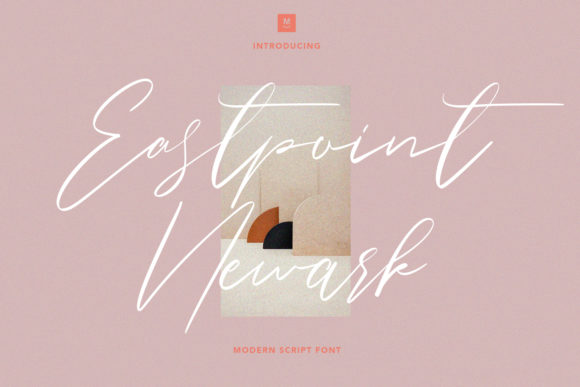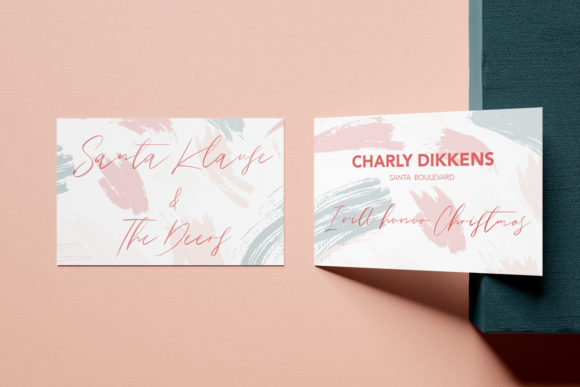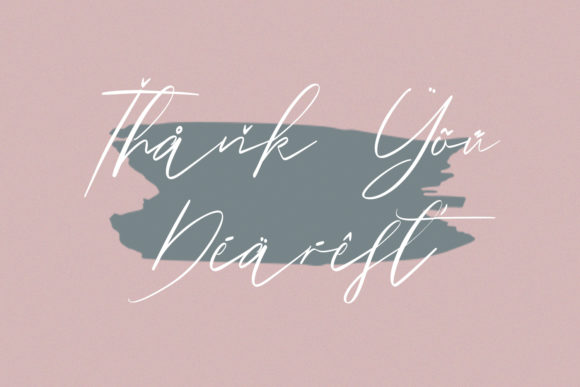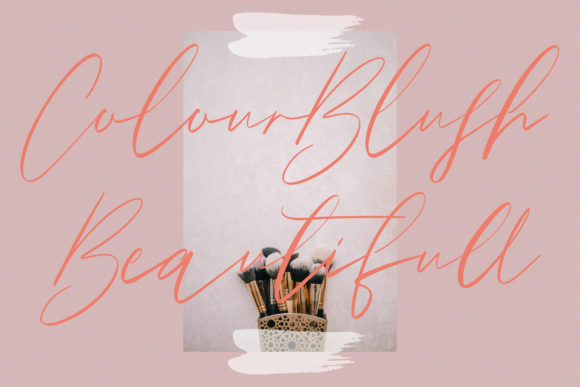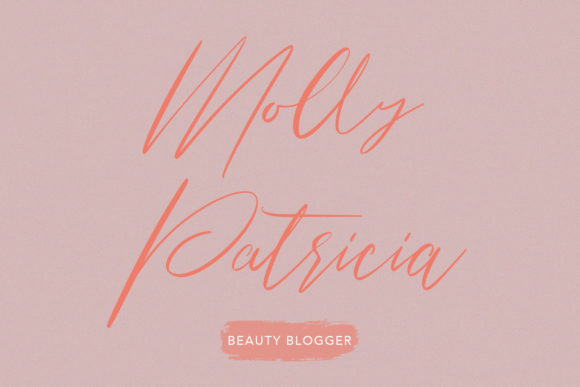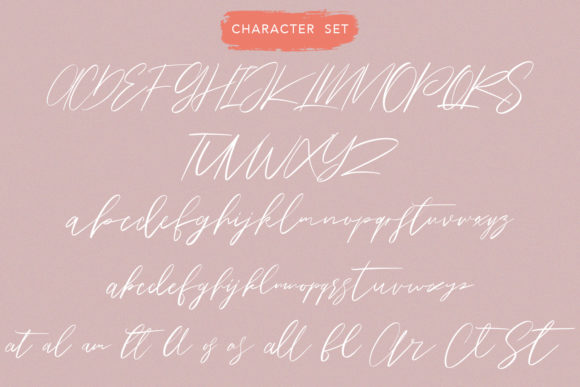
Eastpoint Newark Font
About Eastpoint Newark Font
Eastpoint Newark is an elegant script font with a contemporary atmosphere and impeccable form, inspired by timeless classic calligraphy. Not too thin and not too thick, balanced and varied, this font was designed to enhance the beauty of your projects.